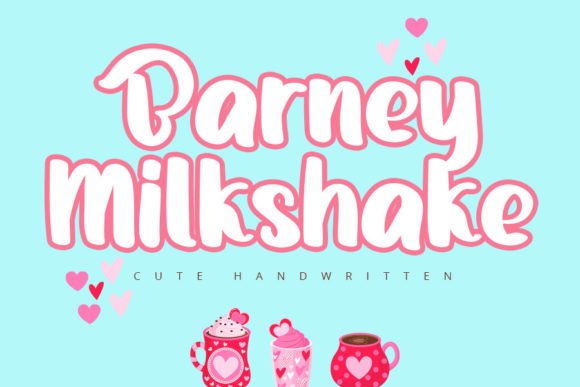
Introduction to Barney Milkshake Font
Barney Milkshake is a bold and thick lettered display font.
It can be used for various purposes such as logos, wedding invitations, headings, t-shirts, letterhead, signage, labels, news, posters, badges and so much more .
Key Features of Barney Milkshake Font
Why Choose Barney Milkshake Font?